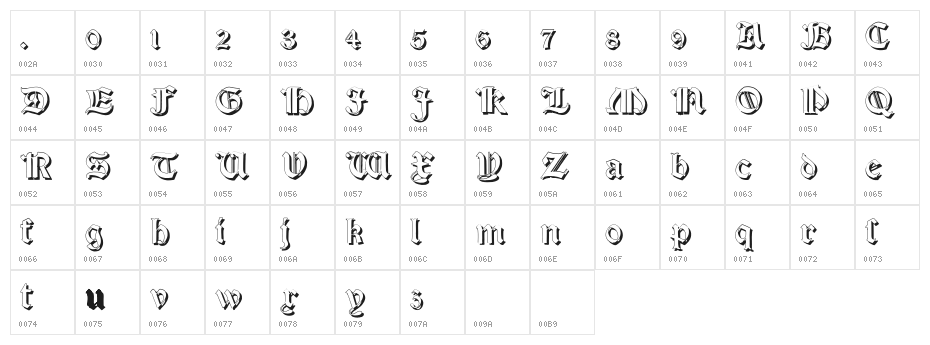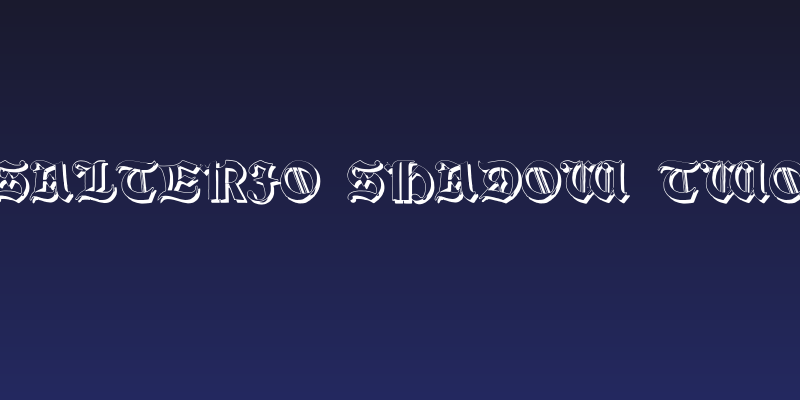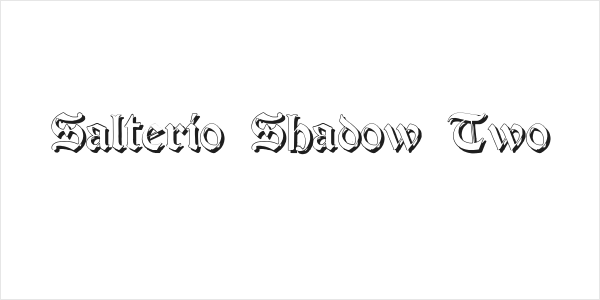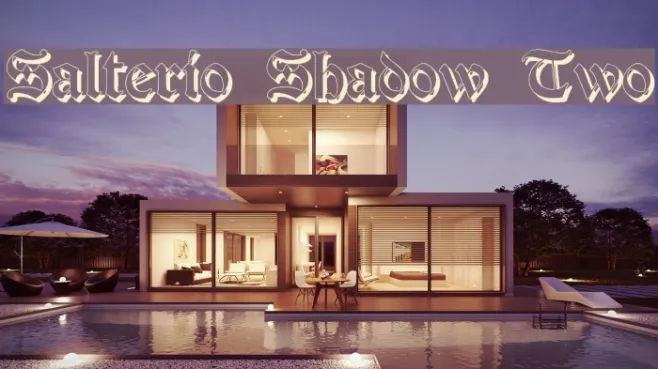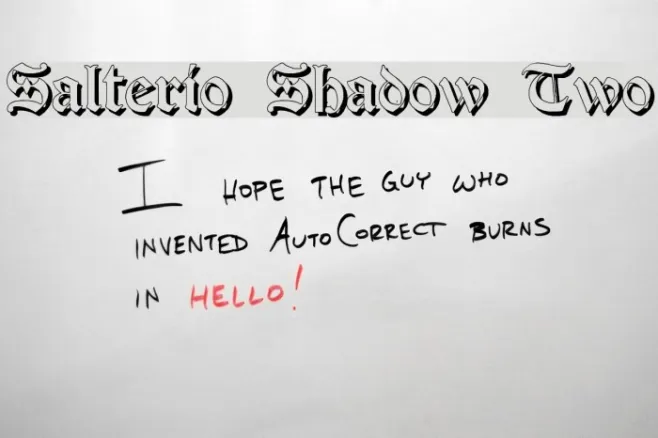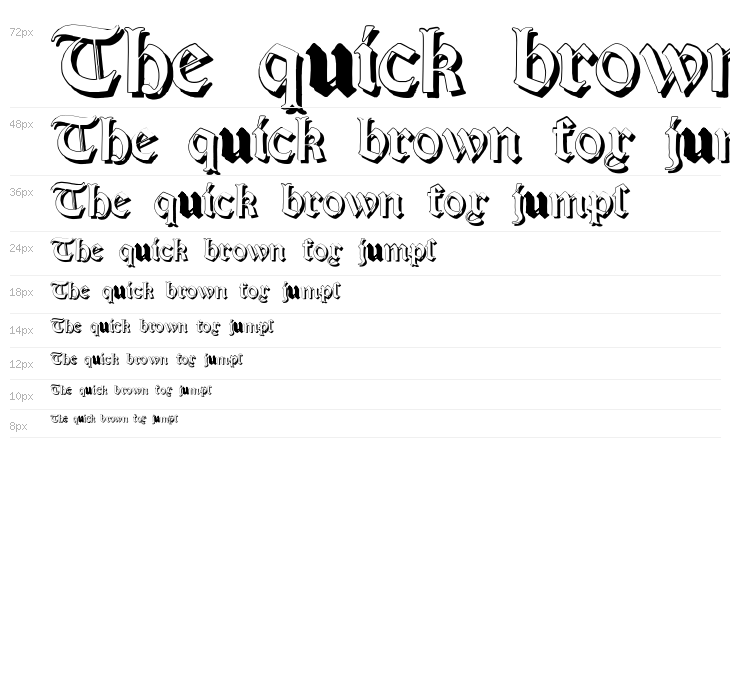
Salterio Shadow Two Font
Salterio Shadow Two Description
This font features a dramatic and bold blackletter style with a shadow effect that adds depth and dimension. The characters are intricately designed with sharp angles and elaborate curves, reminiscent of traditional Gothic script. The uppercase and lowercase letters maintain a consistent style, with the shadow providing a striking contrast against the main strokes. The numerals and special characters follow the same ornate design, making the font suitable for projects that require a historical or medieval aesthetic.